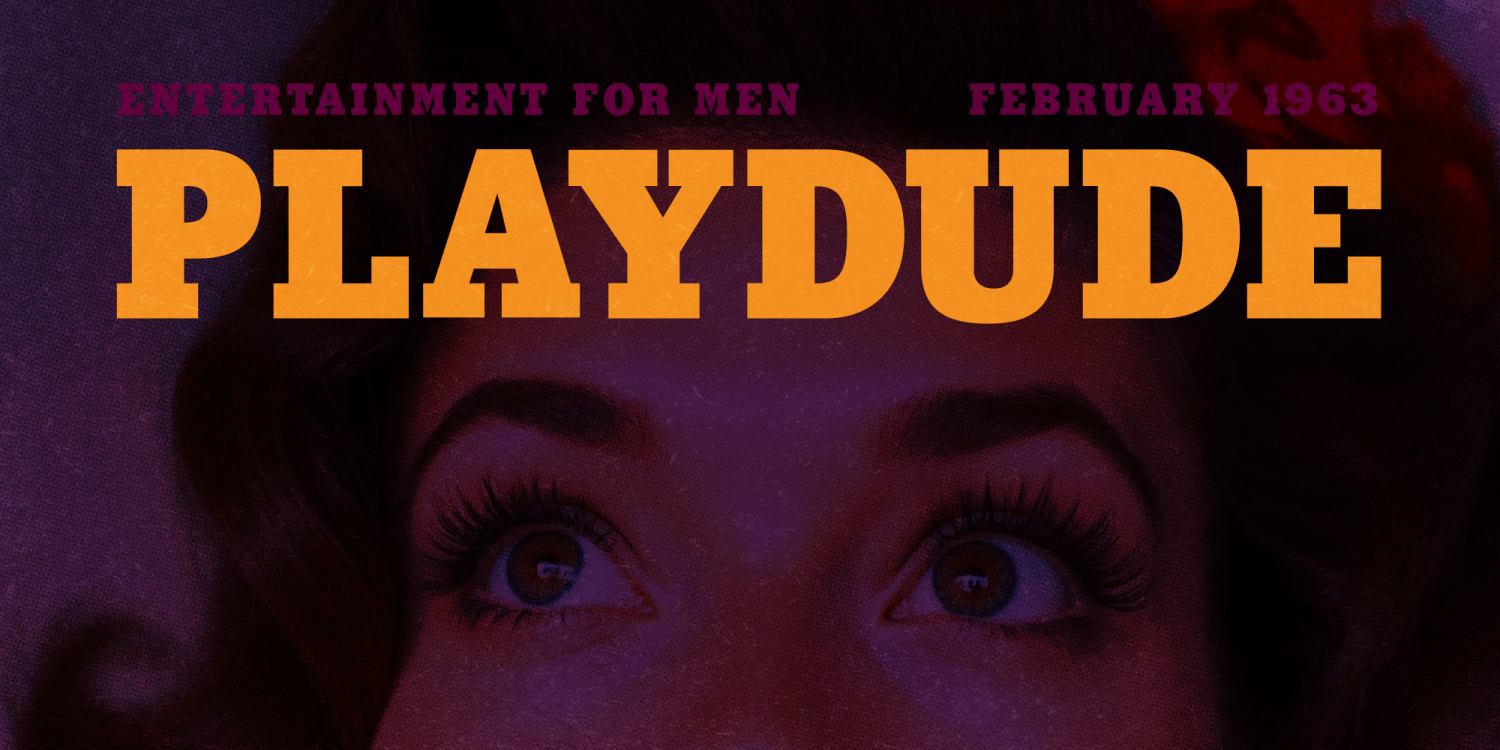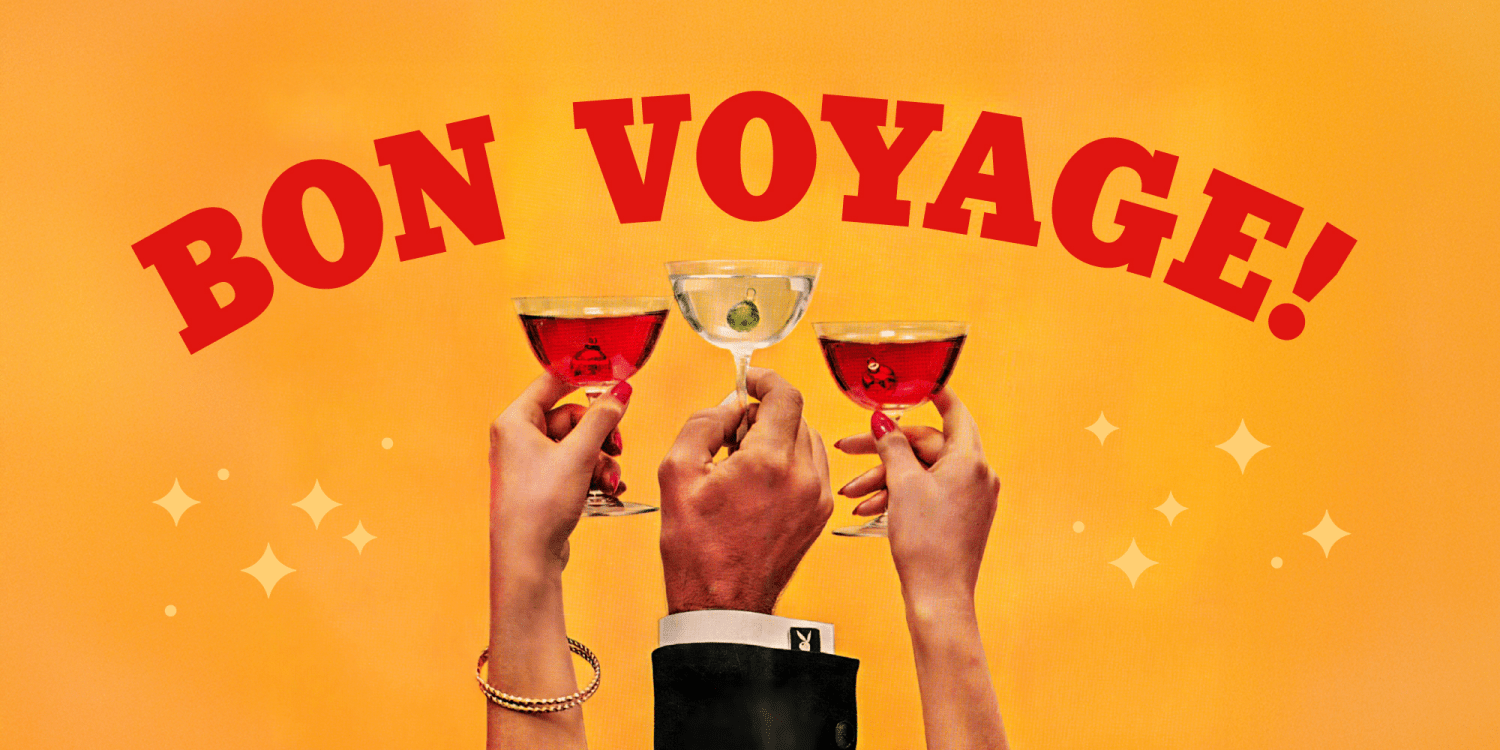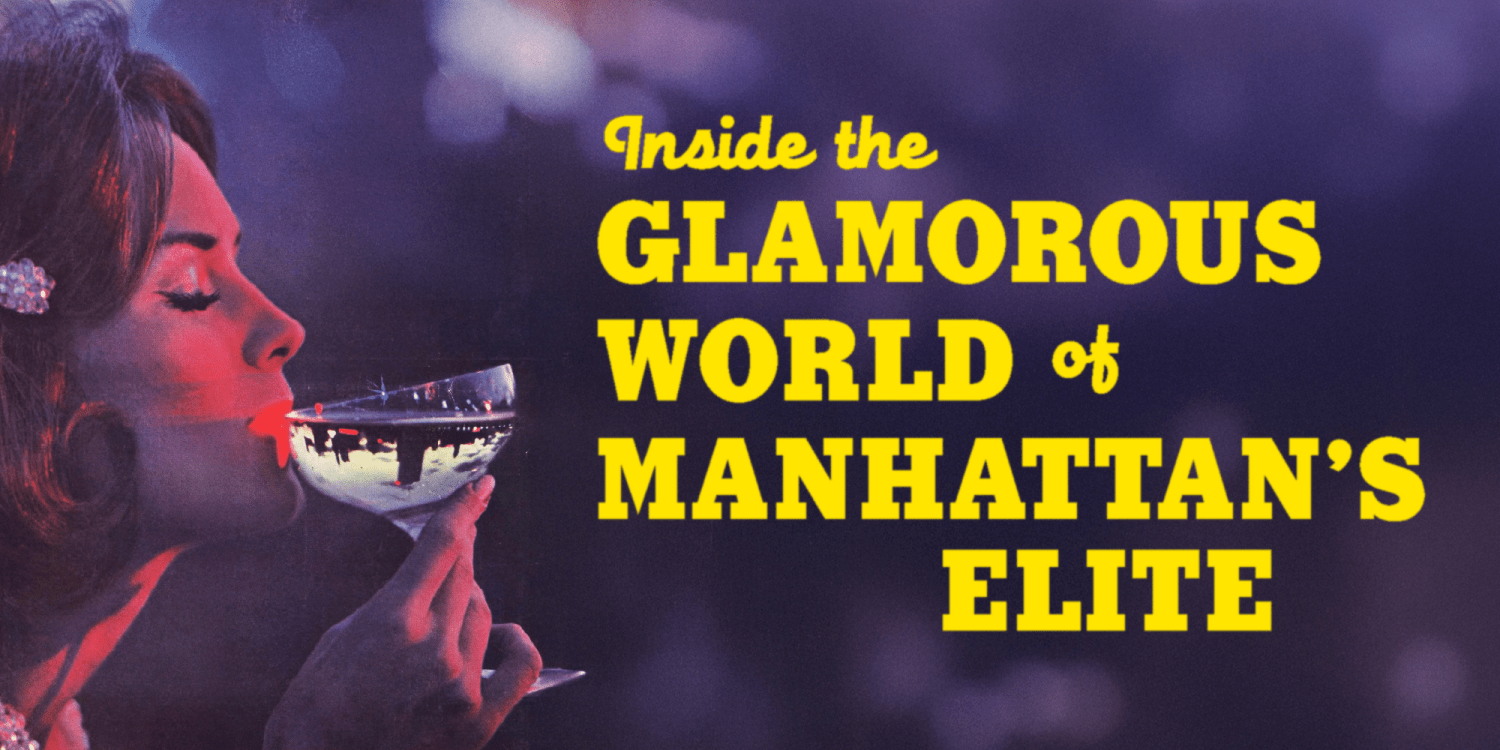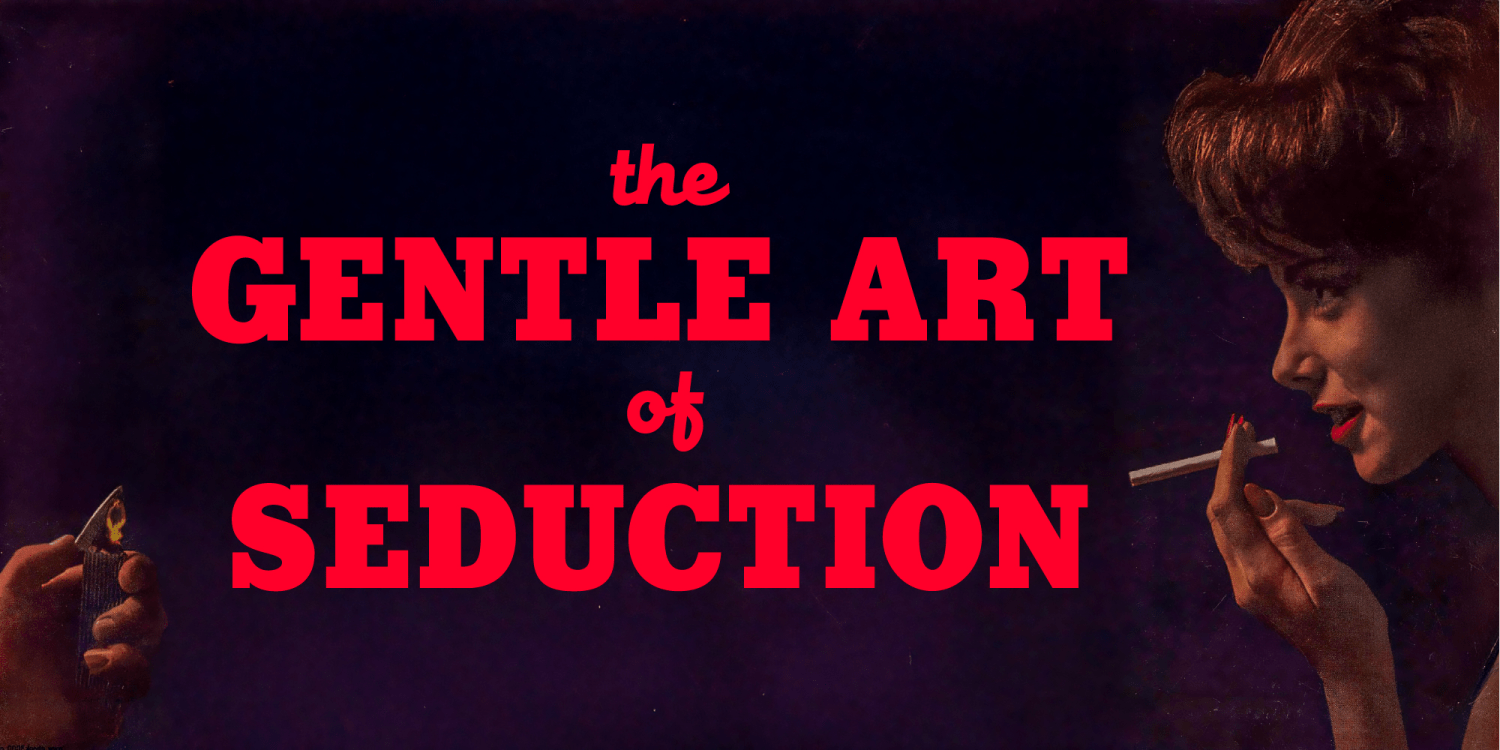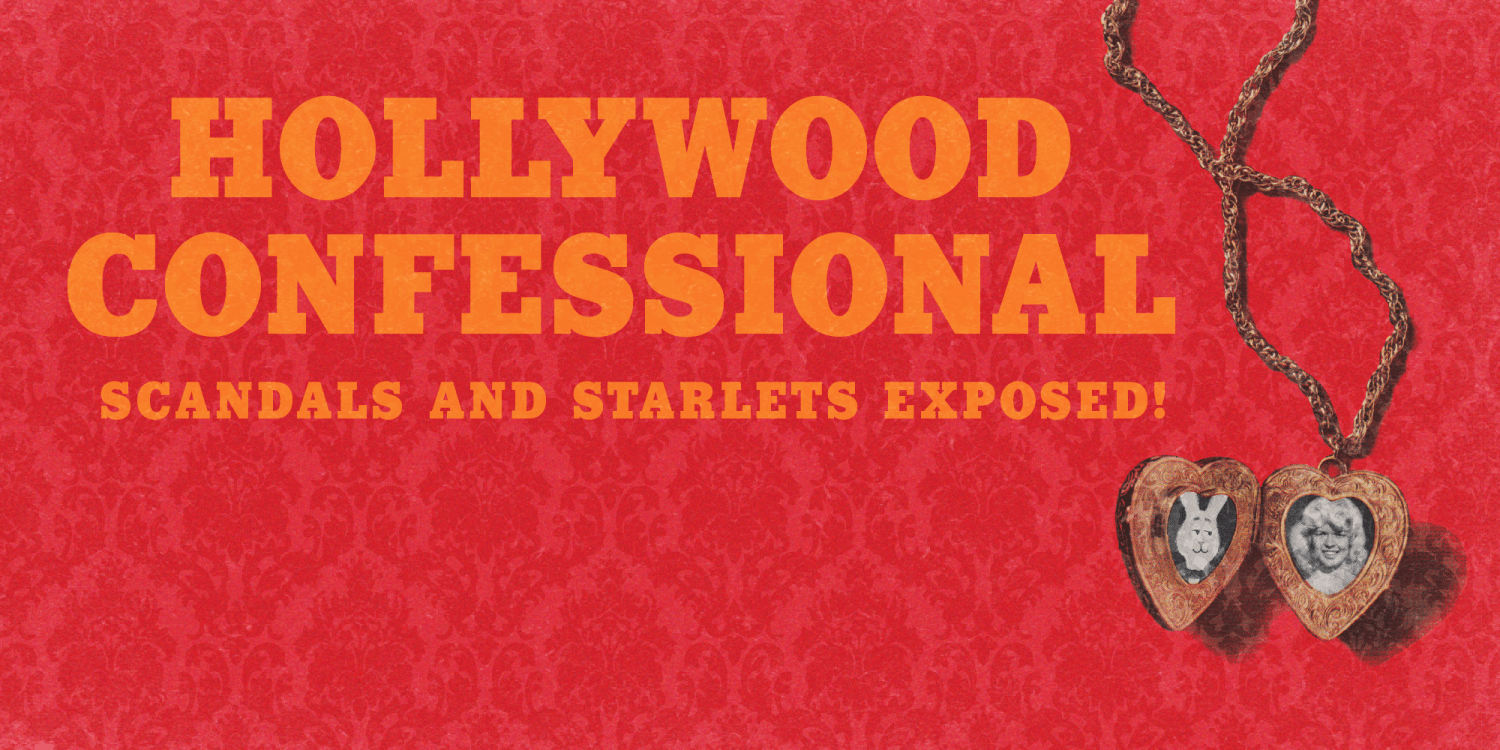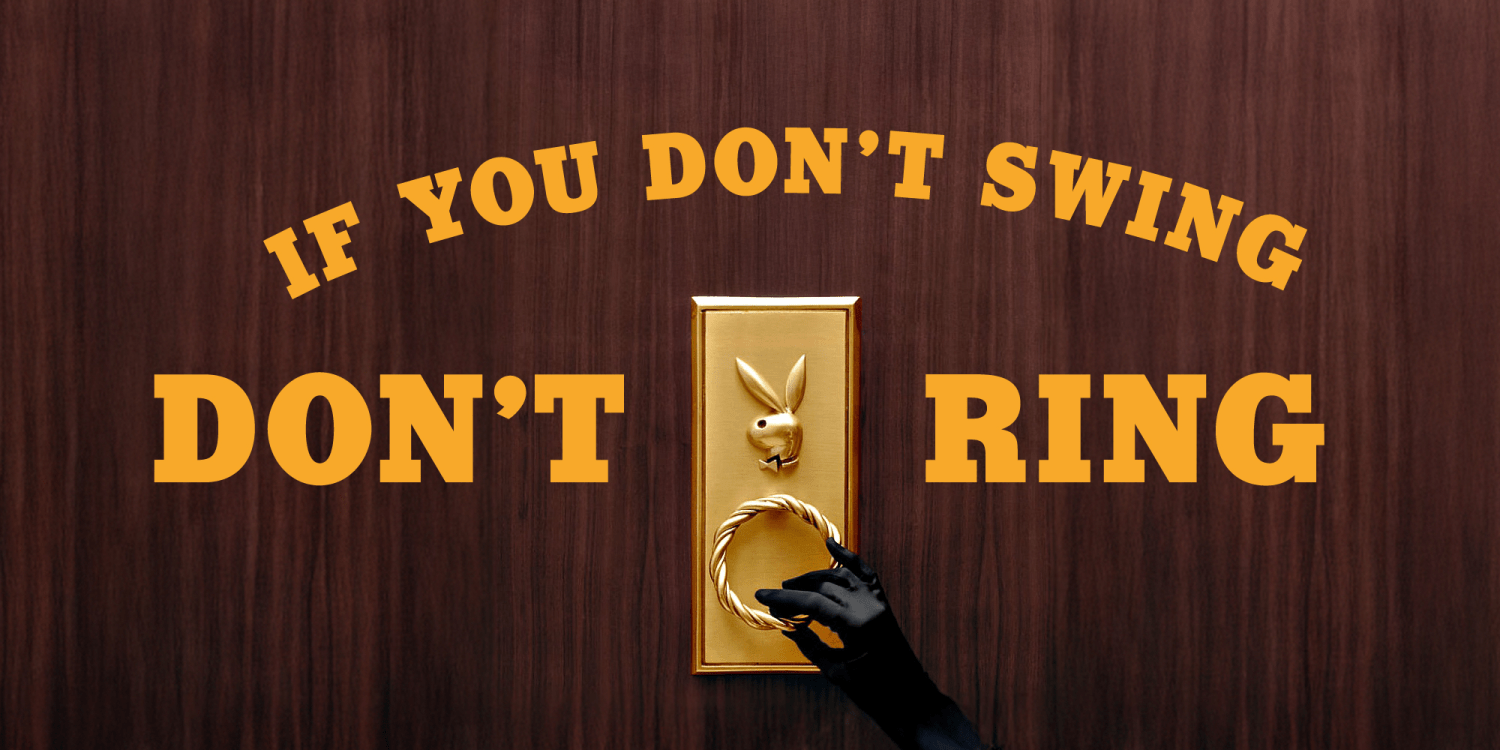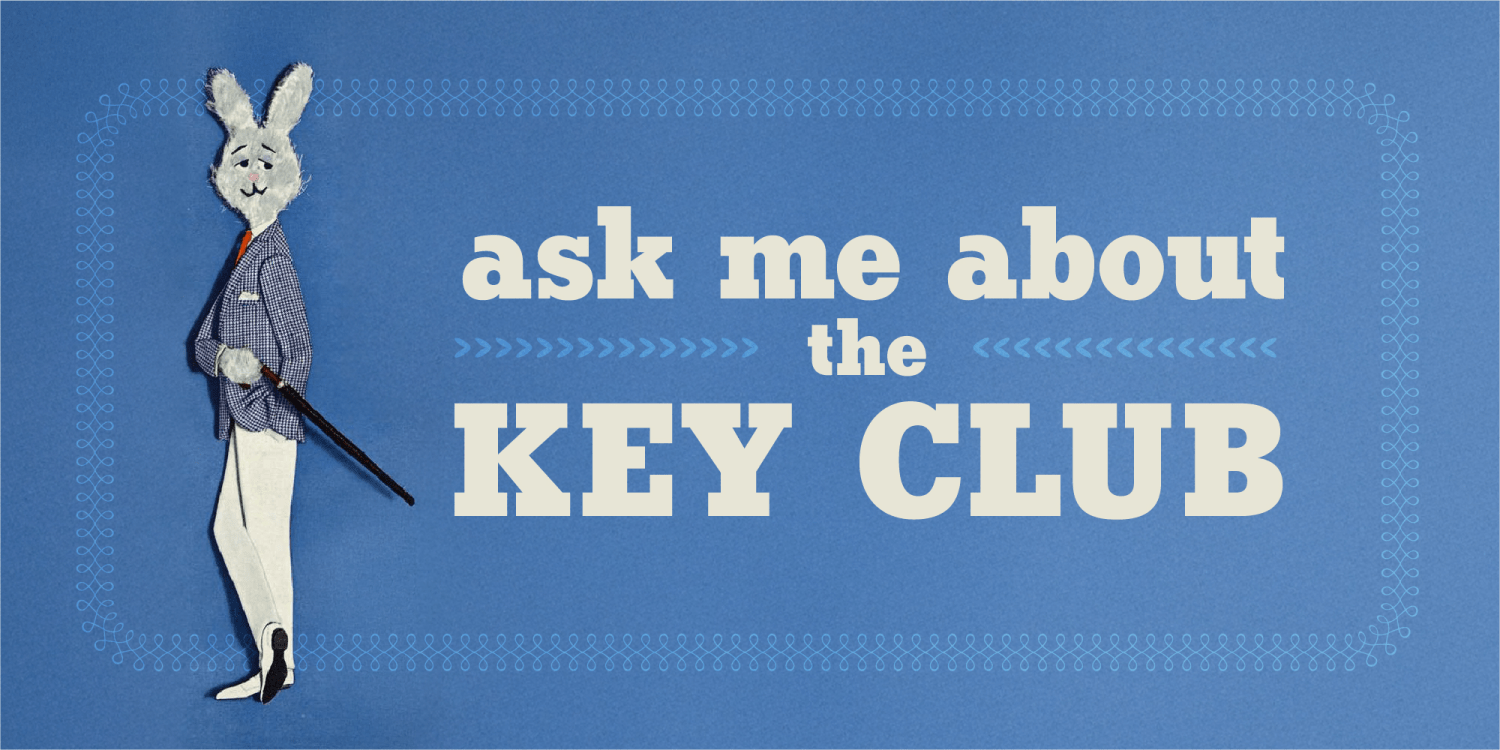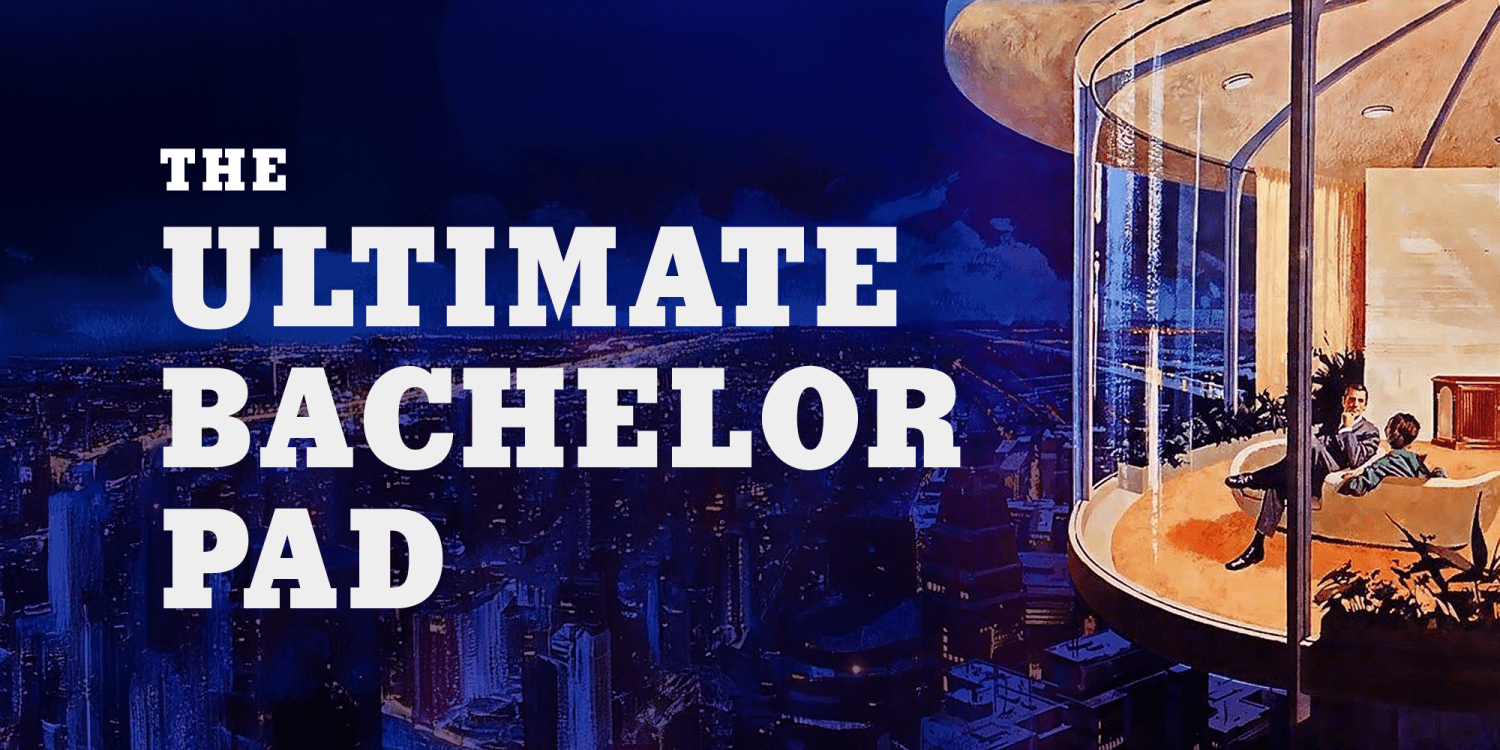
A thick serif font inspired by the classic magazine logo is characterized by bold, heavy letterforms with elegantly curved serifs. The typeface has a strong, sophisticated appearance, combining vintage charm with modern flair. The thick strokes and sharp, bracketed serifs give it a sense of luxury and confidence, making it ideal for branding that seeks to convey both elegance and boldness.